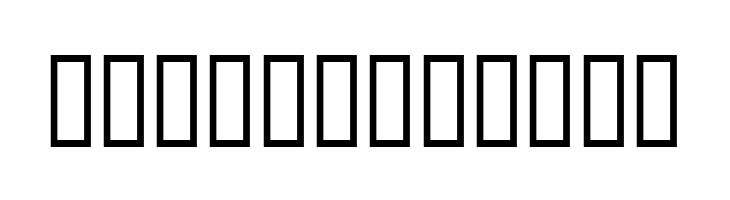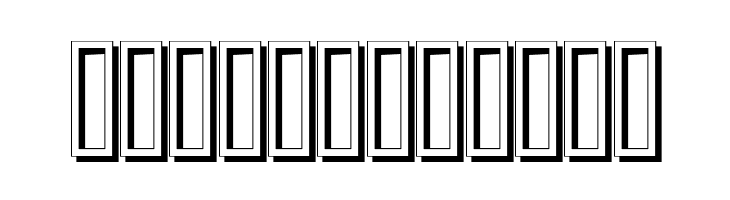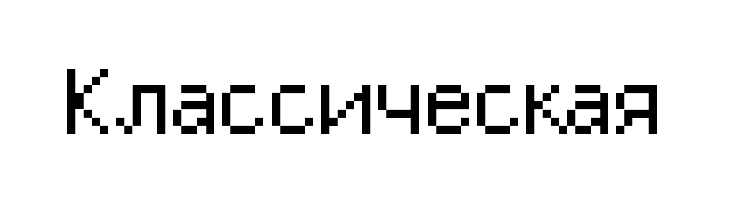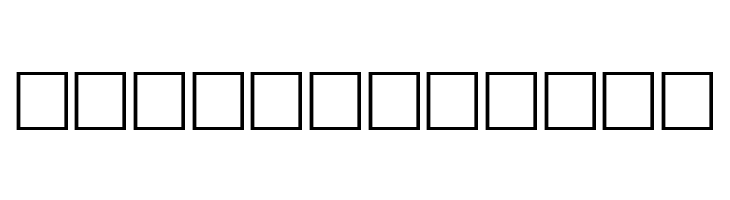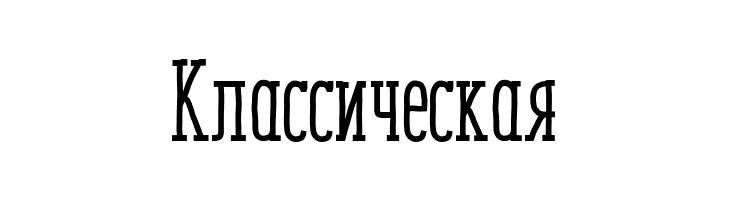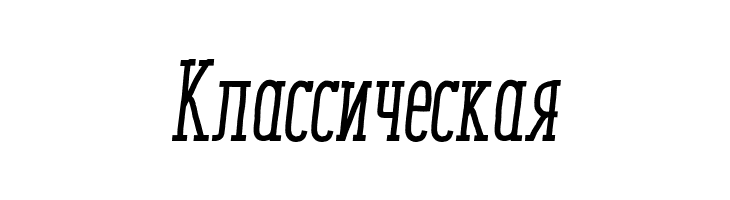
A bold, playful font with dynamic, patterned characters.
A bold, decorative font with a rugged, vintage appearance.
A bold, decorative font with a vintage, distressed style.
A playful, bold, and rounded font with a hand-drawn aesthetic.
A bold, geometric font with a modern and structured design.
A bold, condensed font with strong, uniform strokes ideal for impactful headlines.
A bold, shadowed font with a strong, impactful design.
Pixelated icon and symbol set with a mechanical and abstract theme.
Pixel-based icon set inspired by early computer UI graphics.
A bold, ornate Blackletter font with a gothic, medieval style.
A pixelated, retro-style font with a digital, nostalgic feel.
A mystical and esoteric font with angular, decorative letterforms.
A bold, angular font with a retro, digital aesthetic.
A sleek, minimalist font with thin, elongated letterforms and a modern aesthetic.
A modern, minimalist font with tall, narrow characters and thin strokes.
A sleek, italic font with elongated, thin characters and a modern aesthetic.
A sleek, italicized font with thin, elongated characters for a modern look.
A playful, handwritten font with quirky, irregular shapes and creative symbols.
A robust slab serif typeface with strong, block-like serifs and a modern aesthetic.
A medium-weight, italic slab serif font with classic and elegant features.
A pixelated, retro-style font with a blocky, digital appearance.
A bold, expressive handwritten font with fluid, connected strokes.
A playful and whimsical font with flowing, irregular strokes and dynamic movement.
A playful, bold font with hand-drawn, irregular characters in rough squares.